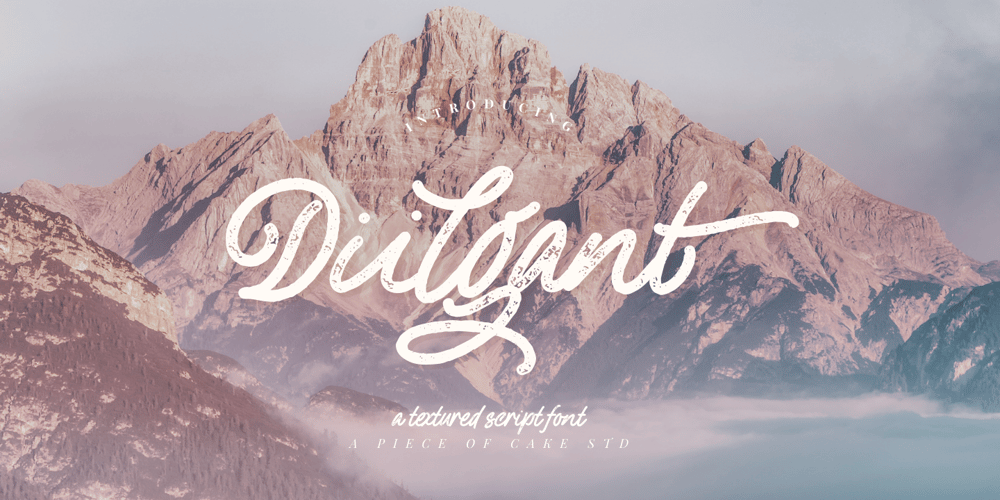
Diilgant Font Family was designed by Muh. Aswar, Andi Syahdang and published by Piece of Cake Typework. Diilgant contains 1 styles and family package options. Hello World,Introducing, Diilgant is a textured script font suitable for your design project needs, such as; social media posts, quotes, overlays on images, taglines, logos, posters, print needs, website banners, and more.Features* A set of uppercase and lowercase glyphs* Number, symbol, and punctuation* Multilingual Support* Alternates, ligatures, and swashesThank you a million times for downloading and using this font for your projects.Enjoy this font and happy creating!Thank You